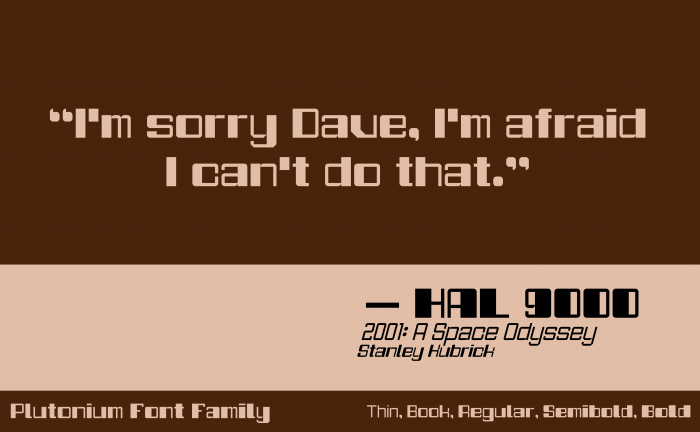
• A heavy, wide display font with high stroke contrast, high x-height rectangular proportions, large counters, low-medium legibility, and minimal curves. Suitable for sci-fi-styled titling. May also be suitable for retro styles.
Part of the Plutonium font family.